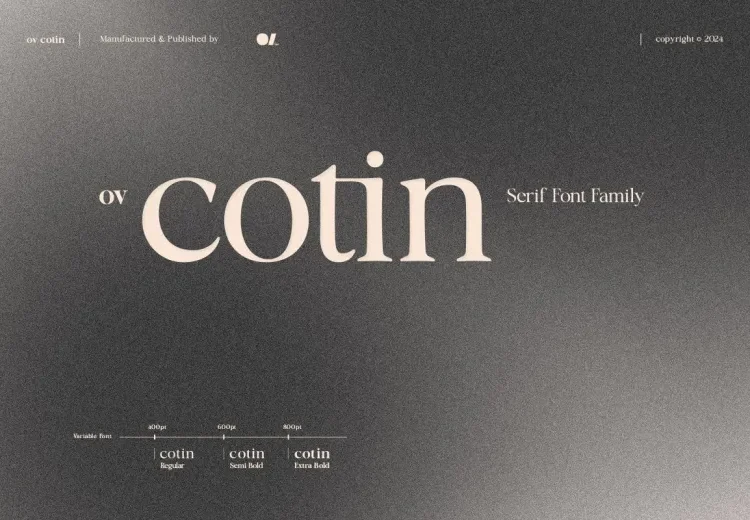
OV Cotin Font
Ov Cotin Font is an elegant serif typeface that seamlessly blends modern design elements with a touch of nostalgia. The font family includes Regular, Semi Bold, and Extra Bold styles, each thoughtfully crafted to offer a perfect balance of contemporary appeal and classic charm. This carefully designed collection evokes a recognizable aesthetic that resonates with both traditional and modern design trends.
Ideal for projects that require a sophisticated and timeless look, Ov Cotin brings an air of refinement to any design. Whether you’re aiming to incorporate traditionalism or modernism, this font offers a versatile solution that enhances the visual appeal of your work.